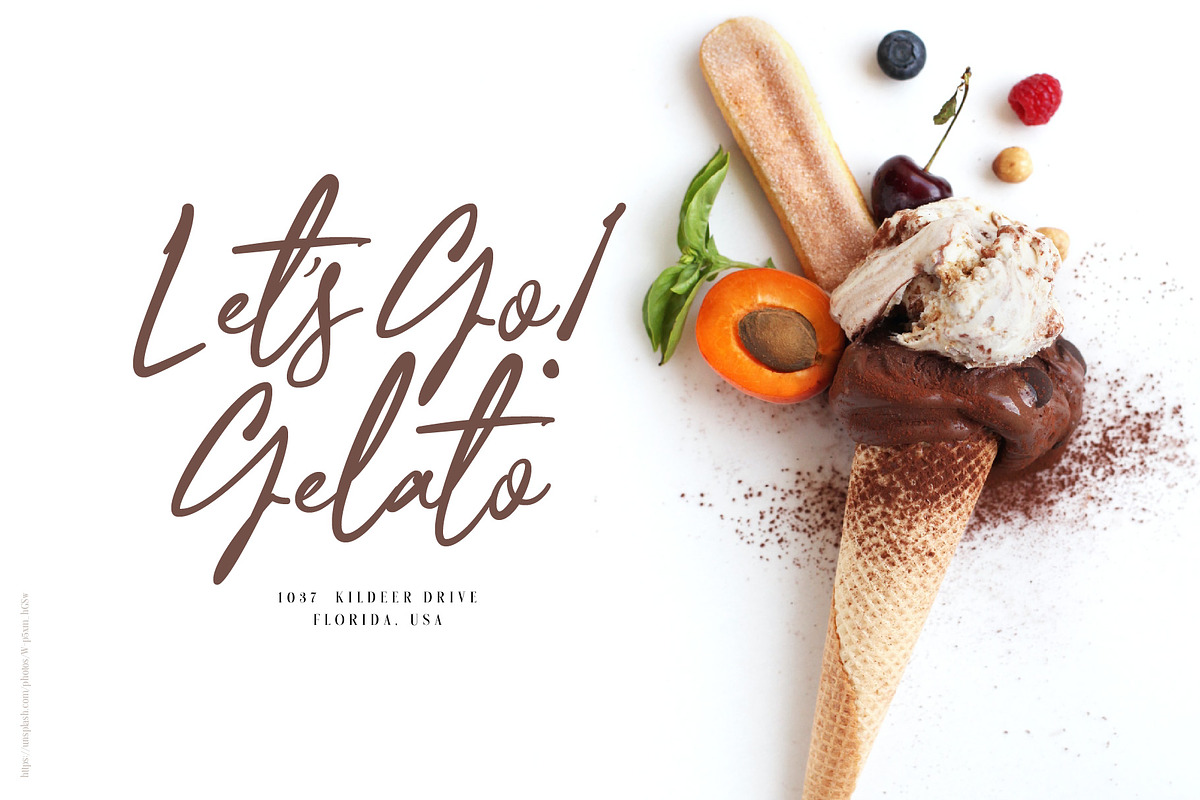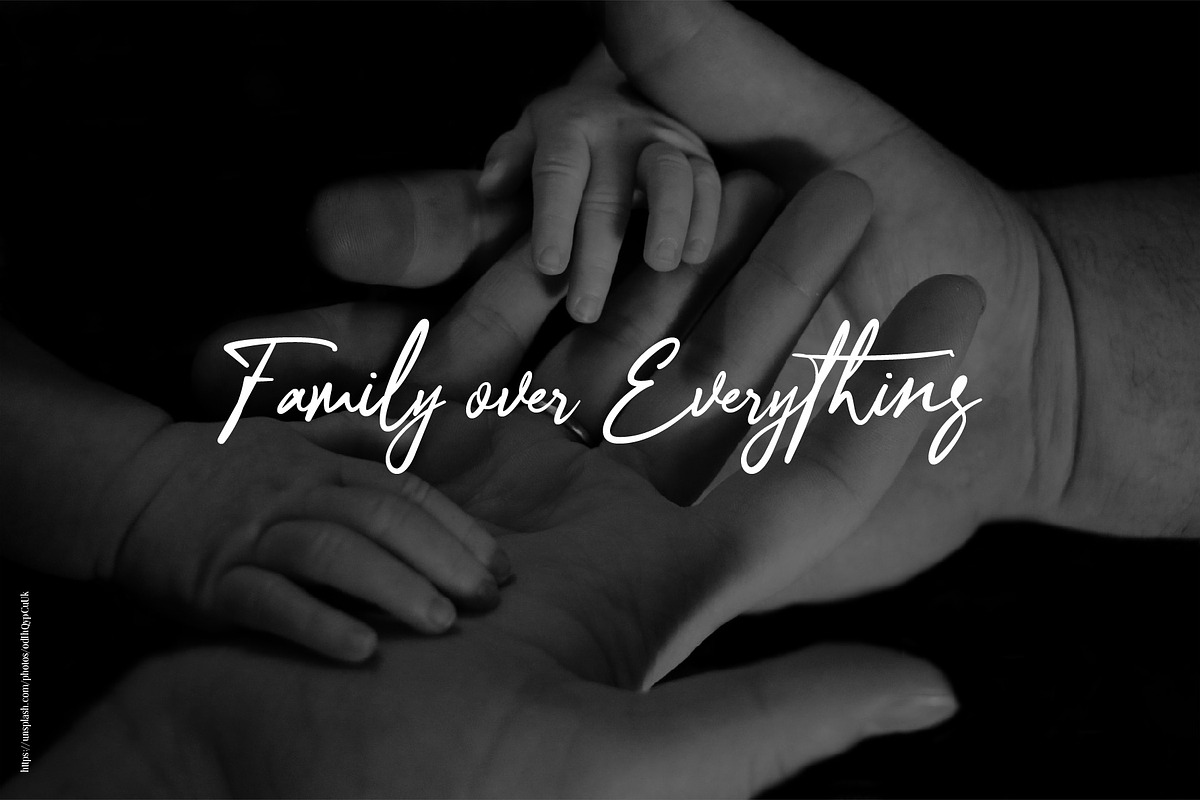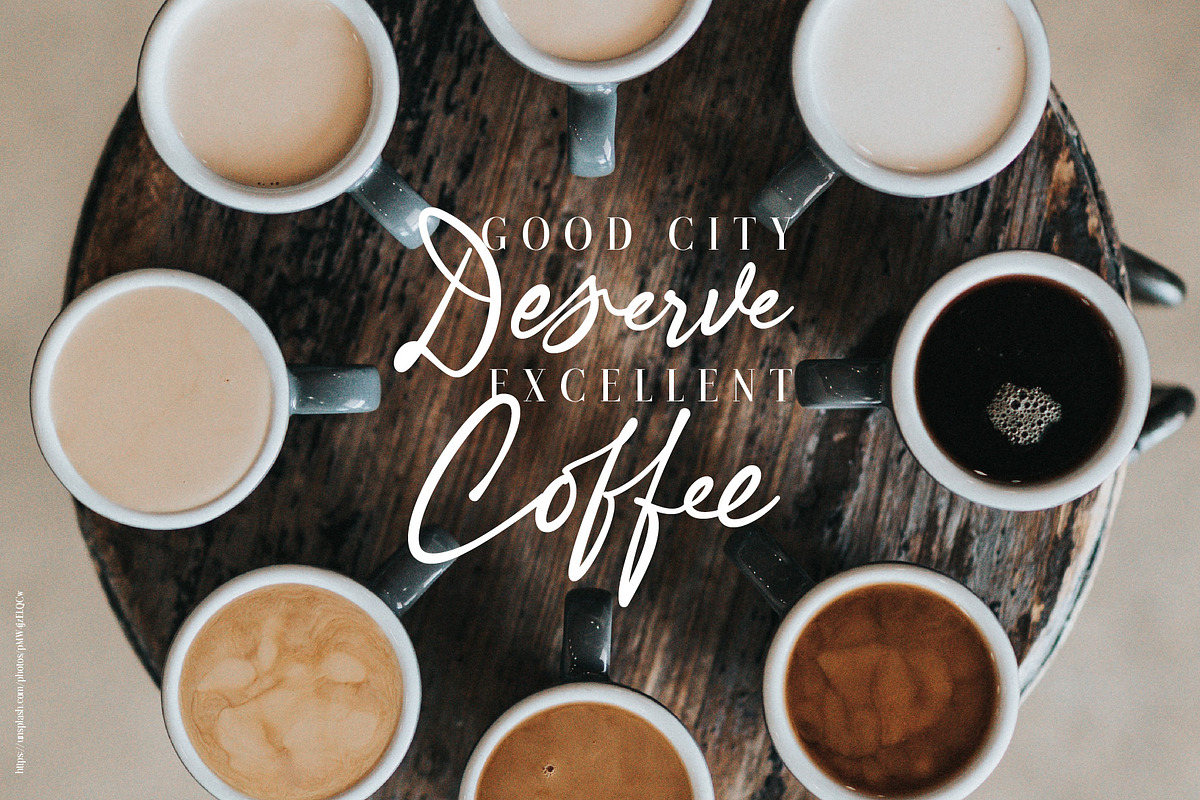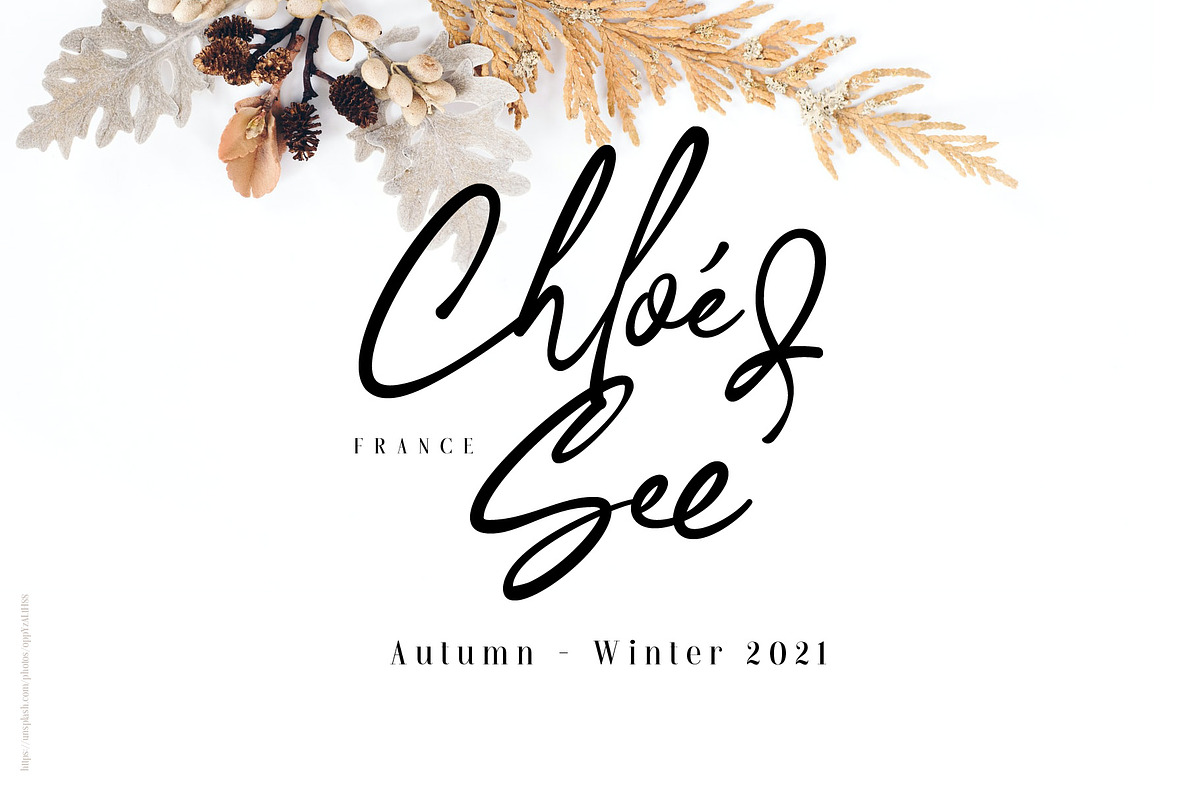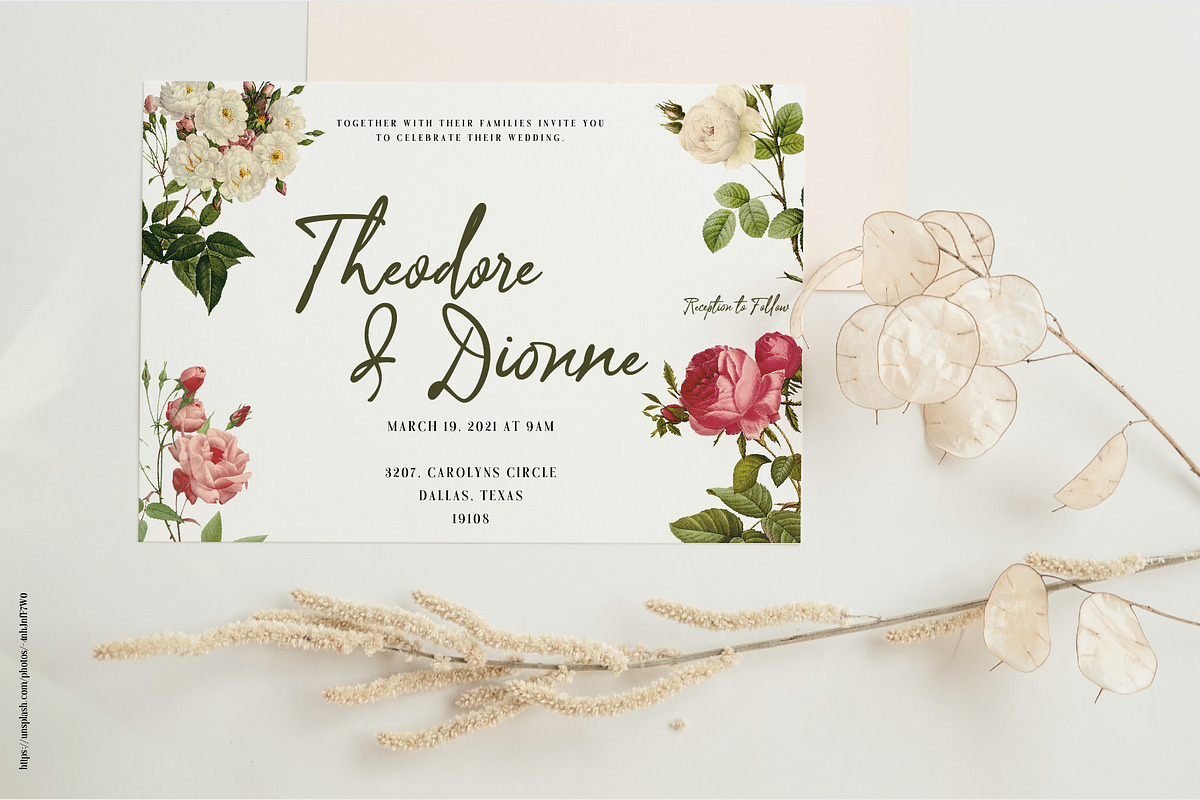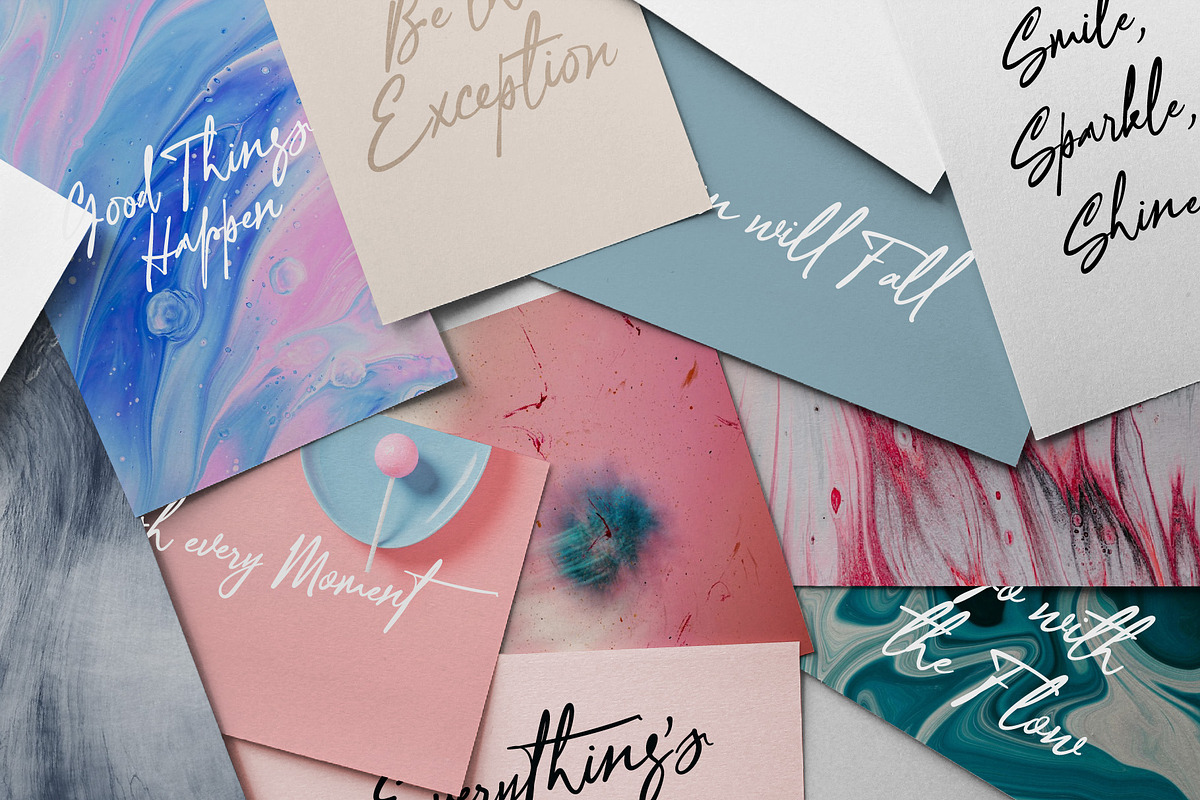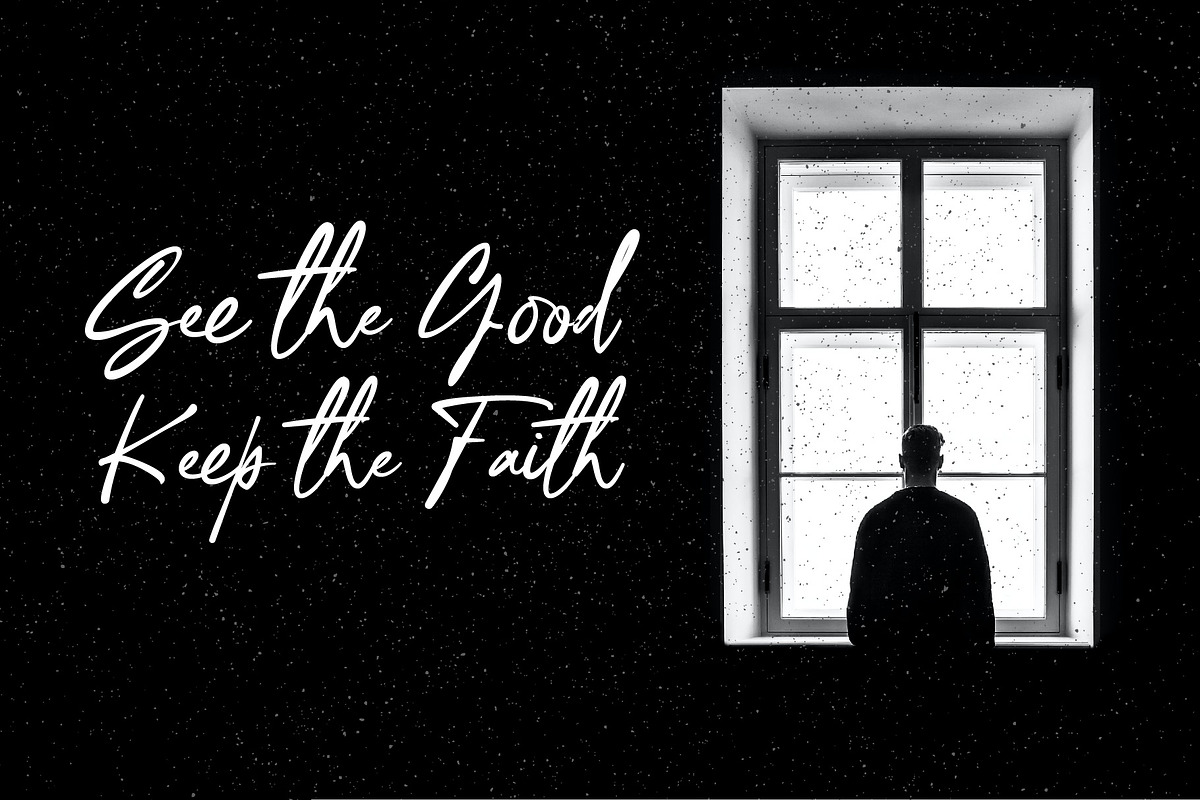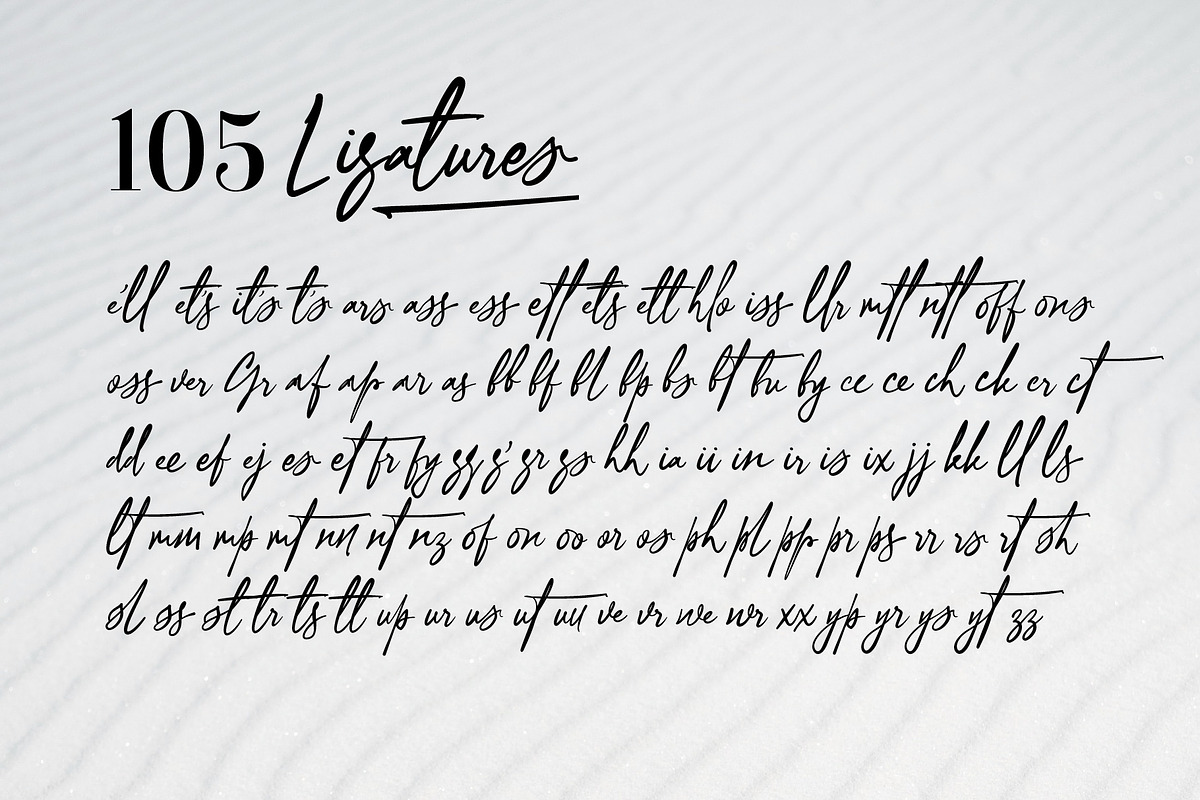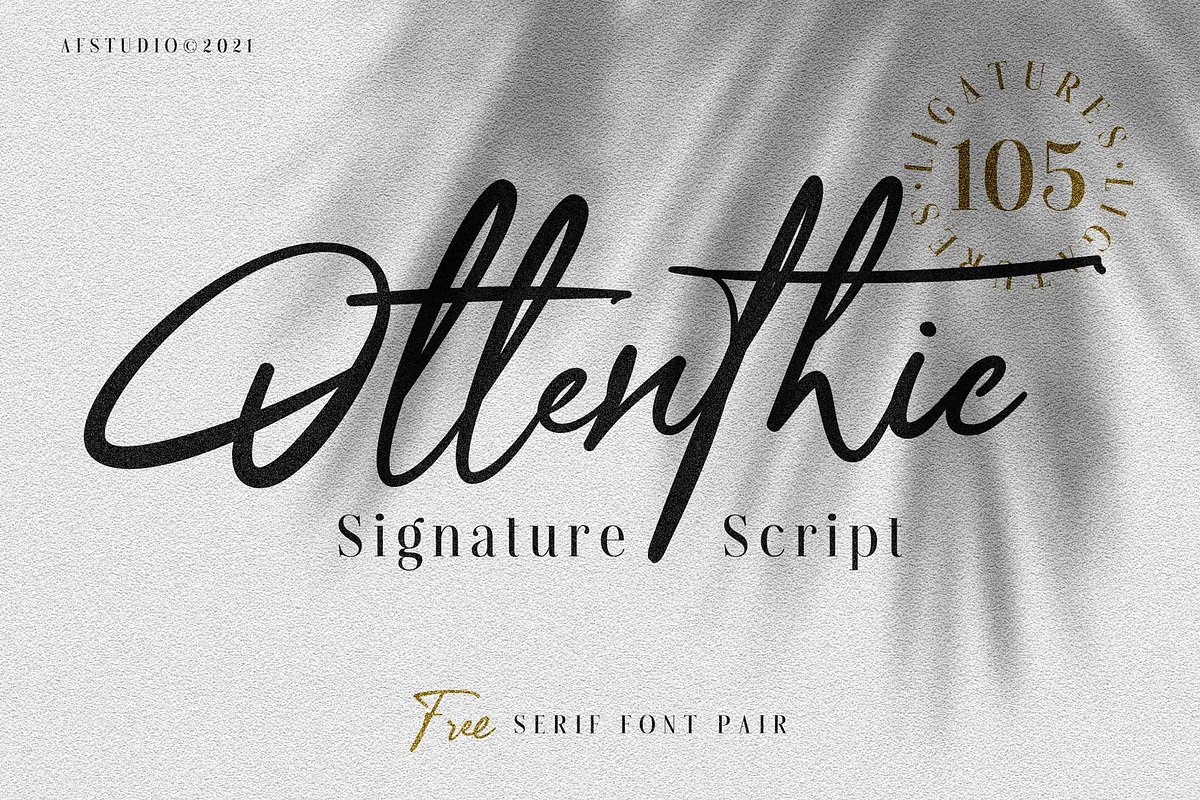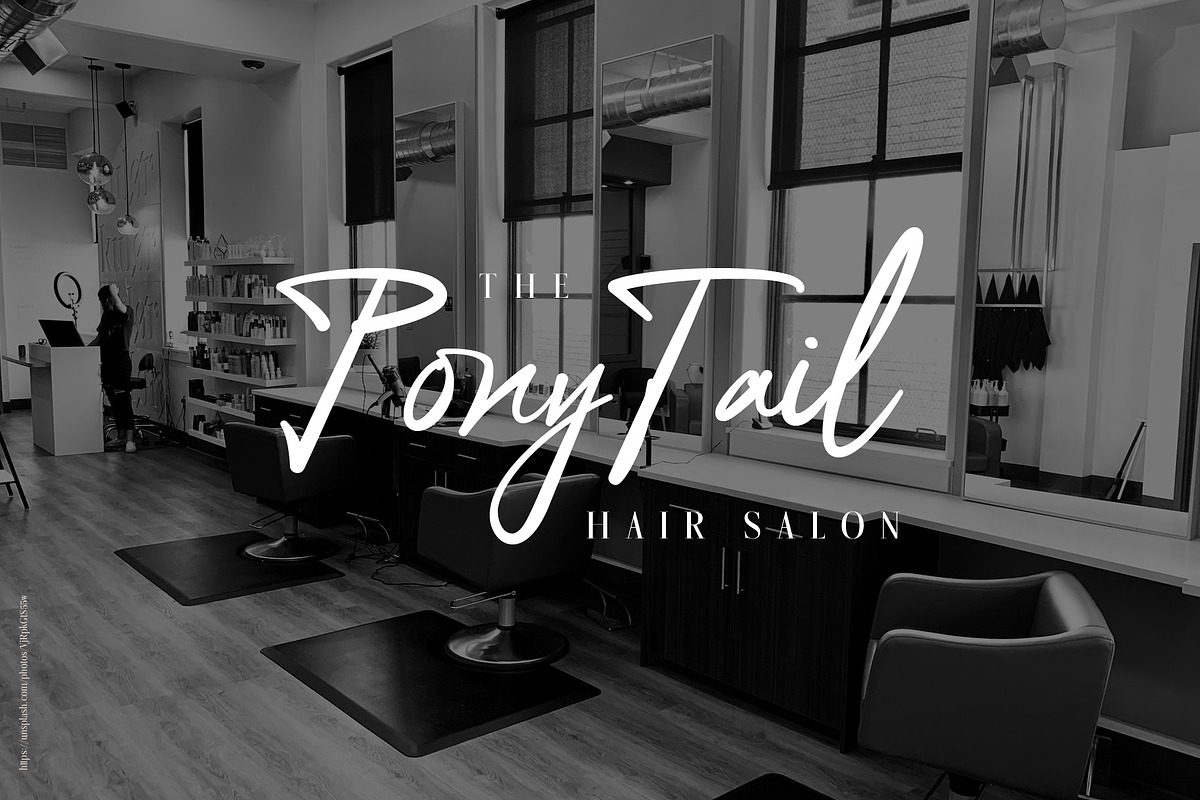
Ottenthic - Signature Ligatures
Ottenthic - Signature Script with tons of ligatures.
Welcoming a new font pair between 'serious and enjoy' with the name Ottenthic. Like it's name, it's Authentic Handwritten signature style of font with a Tons of Ligatures combined with serif font to matching up the needs. On the Script version is created with a freedom of writing by a hand and Serif clean crafted by a pixel perfection. Both of them are comes with Multiple Language such as European and Western Character. The features created are not as huge as my product before, I just create what I think must need such as Ligatures.